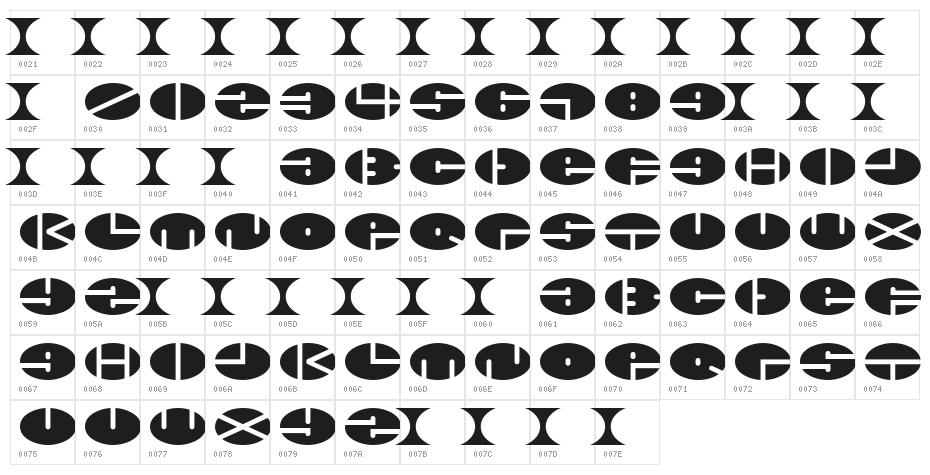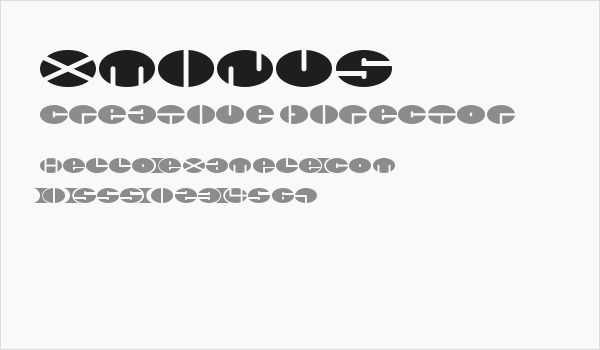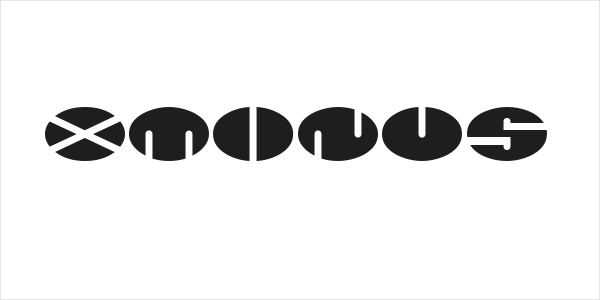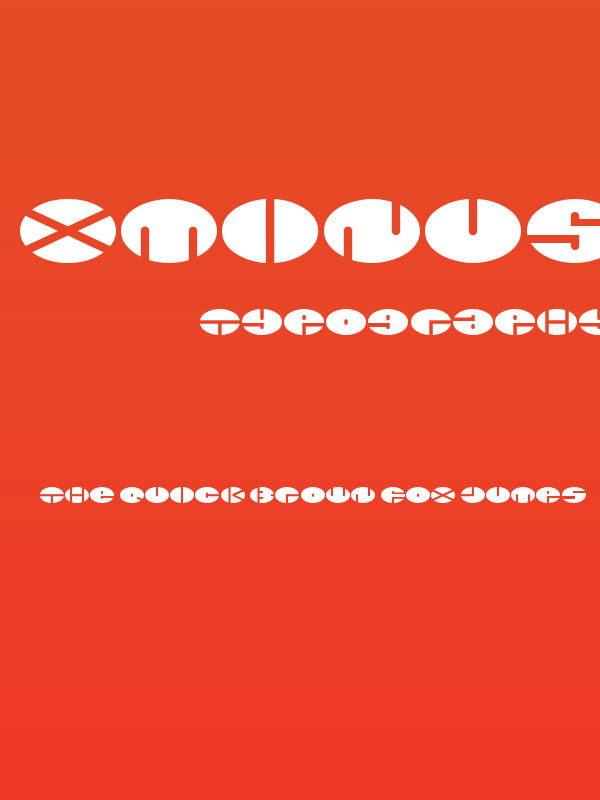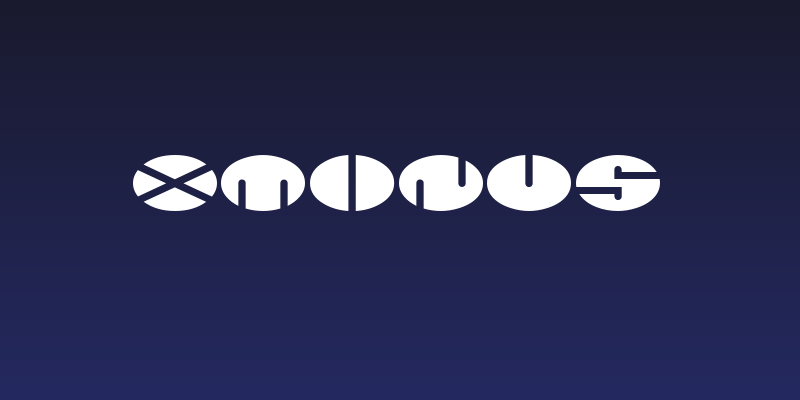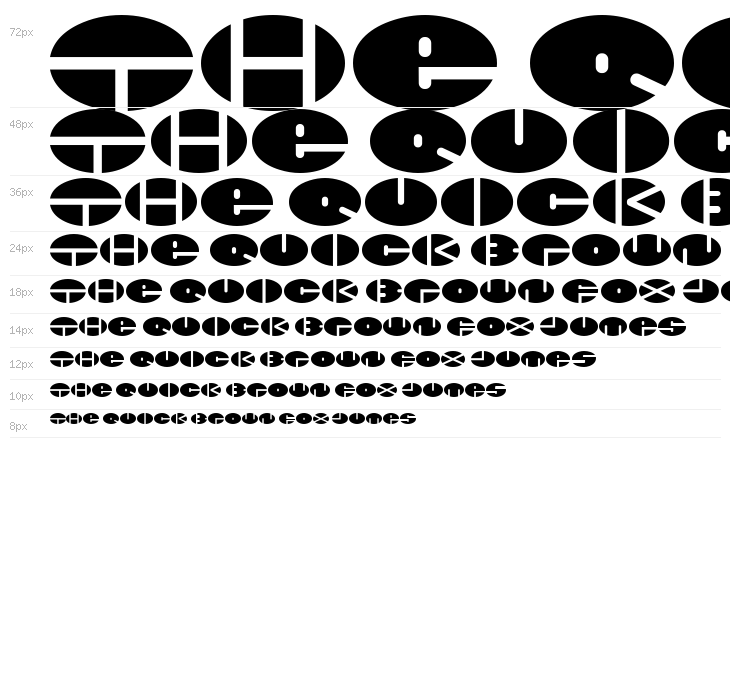
xminus Font
xminus Description
This font features a highly geometric and abstract design, characterized by its circular and segmented shapes. Each letter and number is crafted within a circular form, with strokes that are bold and consistent in width. The design is reminiscent of futuristic or digital aesthetics, with a strong emphasis on symmetry and balance. The characters are distinct and easily recognizable, yet maintain a cohesive visual theme throughout. This font is particularly striking due to its unique approach to character formation, making it ideal for creative and modern design projects.
| Proposed Projects | Ideal for futuristic branding, digital art, modern posters, and creative logos. |